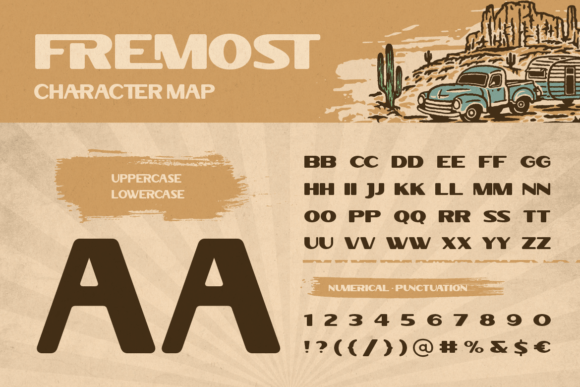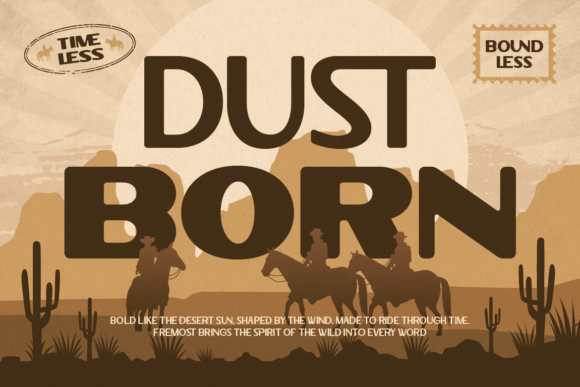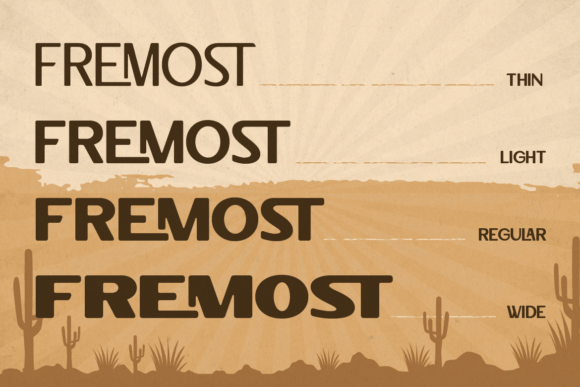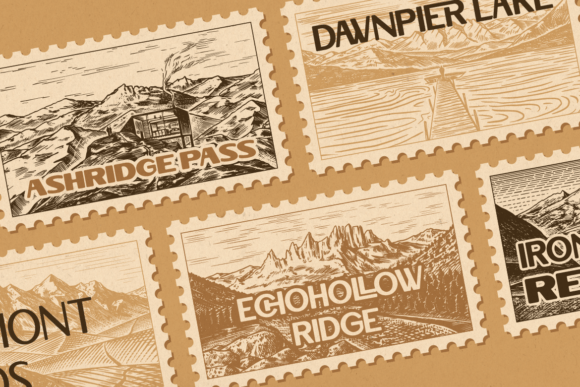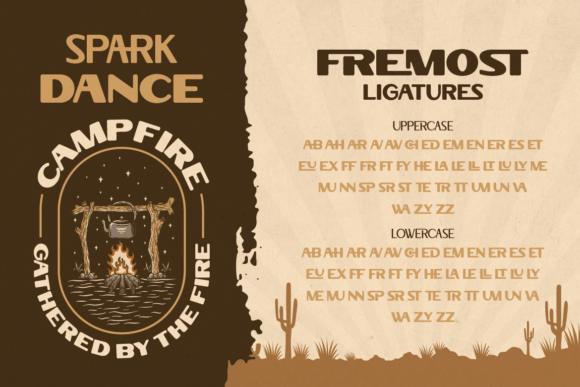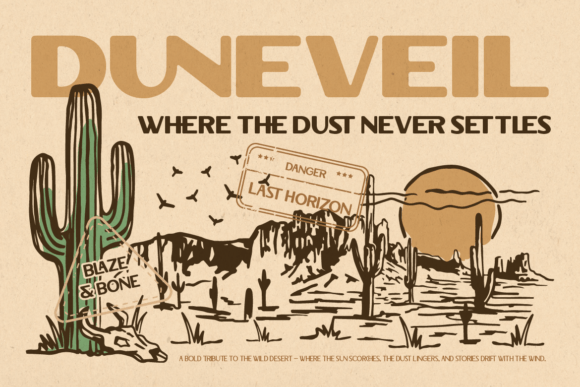
Discover the Bold and Versatile Fremost Font
As a designer, I’ve had my fair share of frustrating moments searching for the perfect font for a project. I recall working on a branding project for a western-themed restaurant, and I was determined to find a font that captured the essence of the American West. That’s when I stumbled upon the Fremost font, a bold and versatile sans serif display typeface that instantly caught my attention.
Designed with a distinct western vibe, Fremost brings a touch of classic frontier style to your designs. Its strong, sturdy feel with a clean, modern twist makes it perfect for a wide range of creative projects. In this article, I’ll share my experience with Fremost, its features, and how to make the most of it in your designs.
What Makes Fremost Stand Out?
Fremost has several characteristics that make it a standout font:
• Distinctive Look: Fremost has a strong, sturdy feel with a clean, modern twist. Its slightly condensed structure makes it perfect for headlines, logos, and branding that needs to grab attention.
• Versatile Weights: This font family comes in four different weights—Thin, Light, Regular, and Wide. This variety gives you the flexibility to use it for both prominent titles and smaller details, all while maintaining a consistent aesthetic.
• Built for Display: Fremost is a display font, meaning it’s optimized for larger sizes. It looks fantastic on posters, packaging, t-shirts, and any other design where you want to make a statement.
Honest Review
• Unique Character: Fremost has a unique character that sets it apart from other fonts. Its western-inspired design gives it a distinctive look that’s perfect for projects that require a touch of ruggedness.
• Flexibility: The four different weights make Fremost a versatile font that can be used for a wide range of projects, from headlines to body text.
• Easy to Read: Despite its bold and condensed structure, Fremost is surprisingly easy to read, even at smaller sizes.
• ⚠️ Limited Use Cases: While Fremost is perfect for display purposes, it may not be the best choice for body text or smaller sizes.
• 🤔 Glyph Limitations: As with any font, there may be limitations to the glyphs and special characters available in Fremost.
Fremost was designed with the American West in mind, drawing inspiration from the rugged landscape and adventurous spirit of the frontier. The font’s creator aimed to capture the essence of the wild west, with its bold and sturdy feel, clean lines, and modern twist.
What are the different weights of Fremost? Fremost comes in four different weights: Thin, Light, Regular, and Wide.
Is Fremost suitable for body text? While Fremost can be used for body text, it’s primarily designed for display purposes and may not be the best choice for smaller sizes.